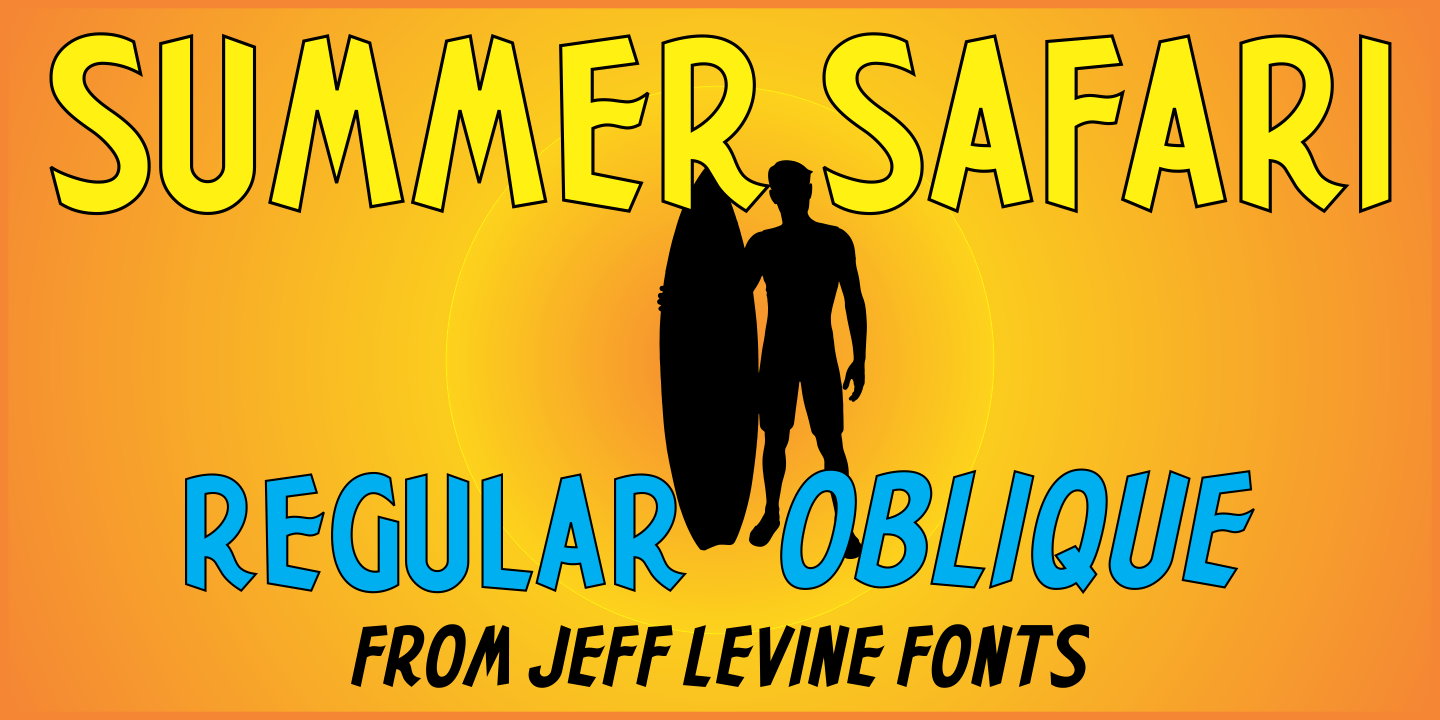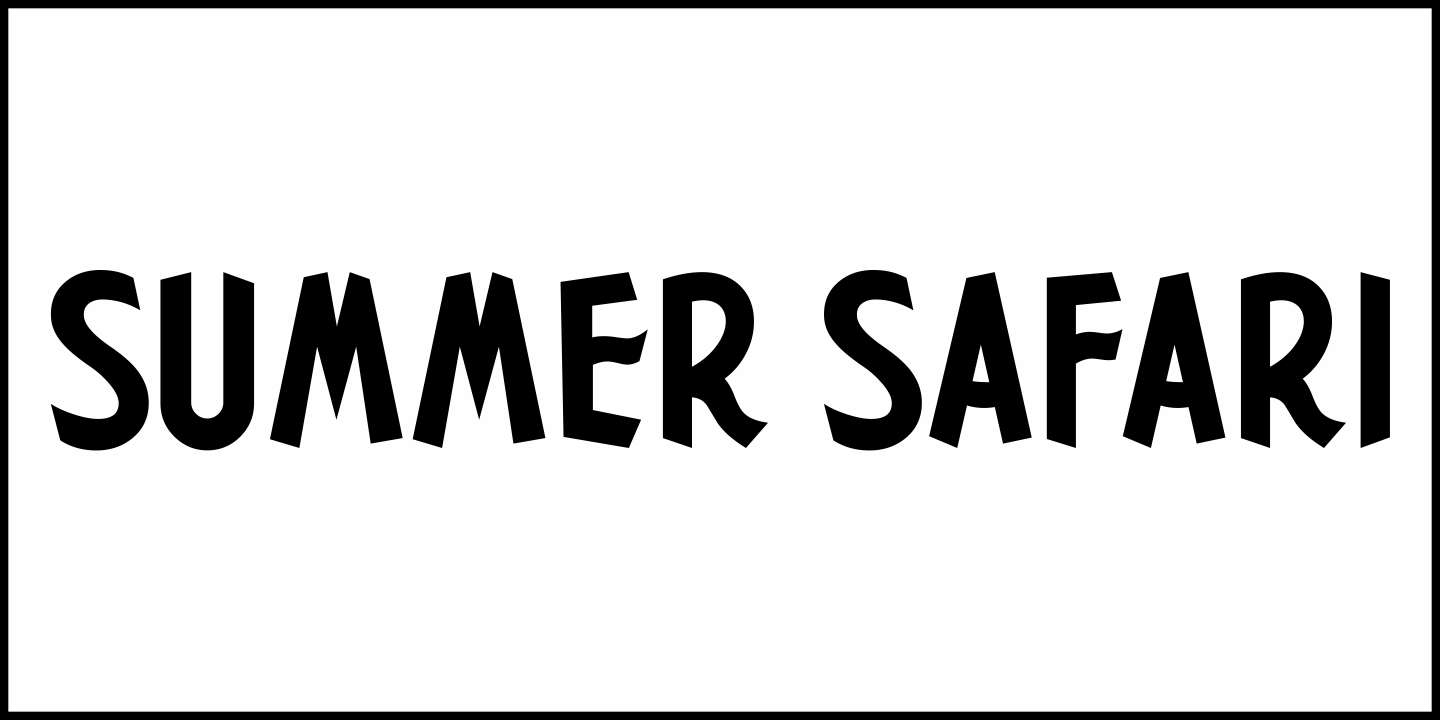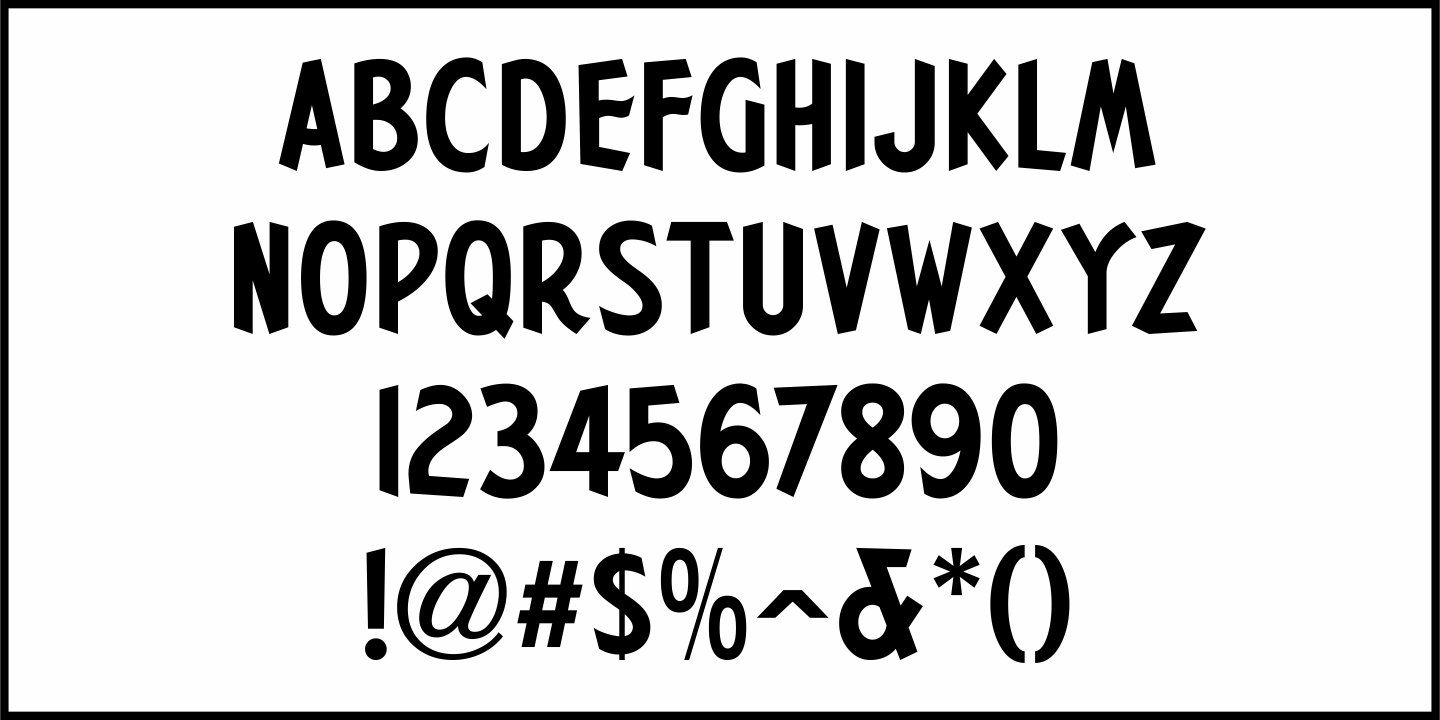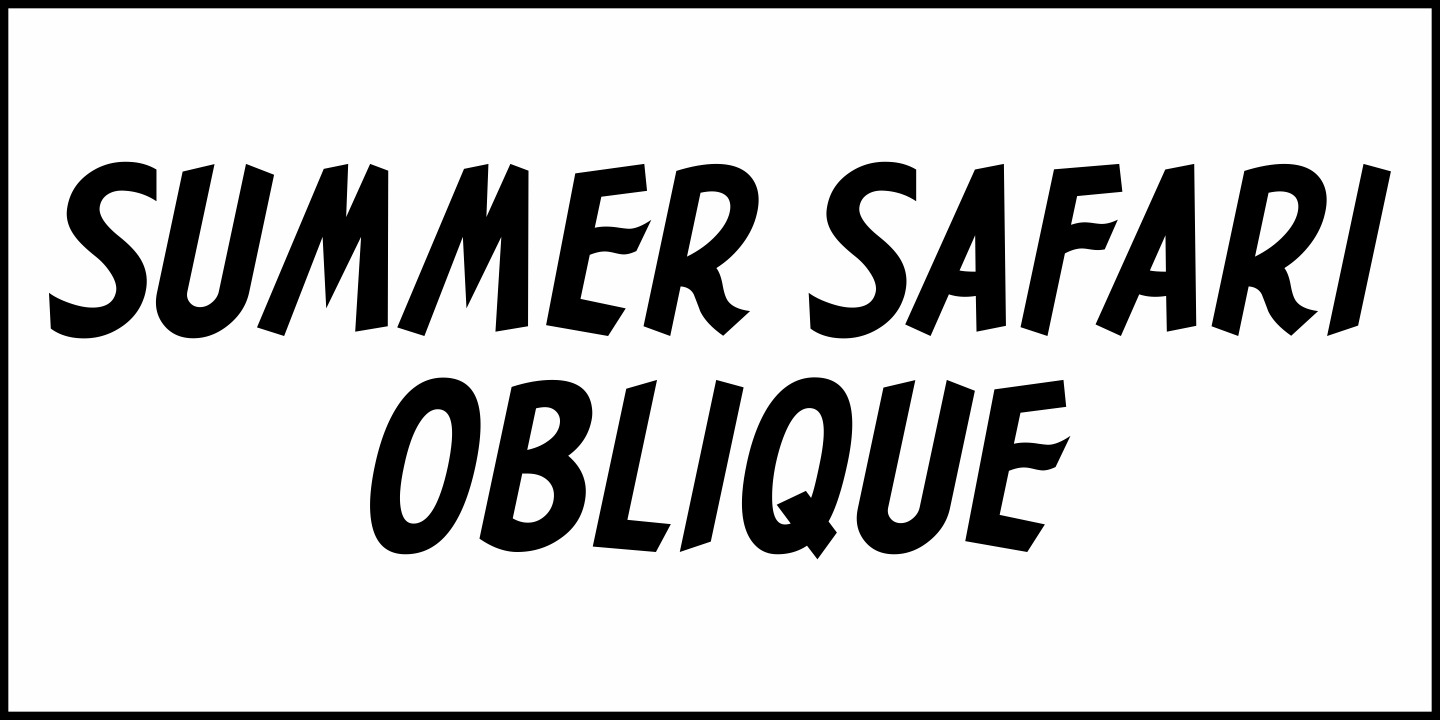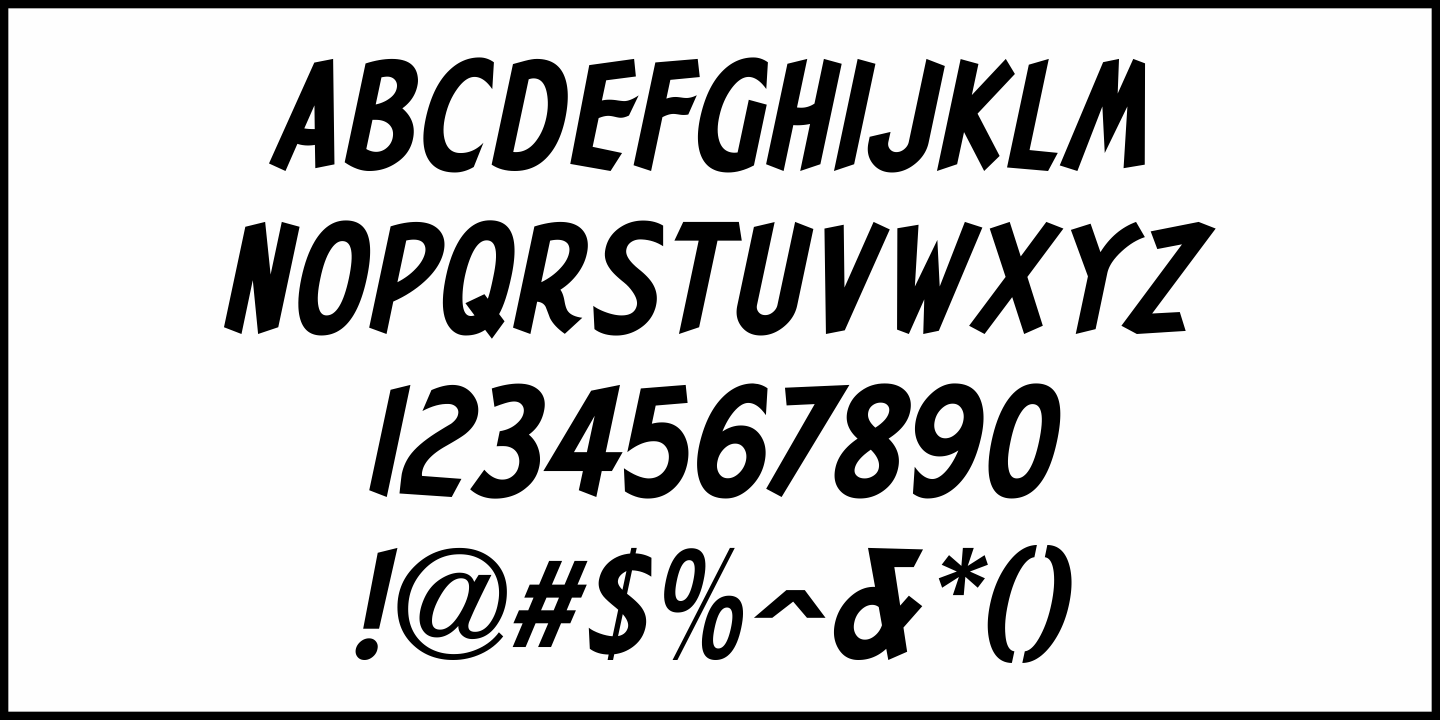
Summer Safari
Inspired by an image of a 1960s rock and roll concert poster for 'The Beach Boys Summer Safari', this typeface captures the casual, informal lettering of the main headline and makes it available digitally.
Evoking sunny days of fast cars, pretty girls and riding the waves, the playfully hand lettered Summer Safari JNL is available in both regular and oblique versions.
Summer Safari JNL Oblique
Summer Safari JNL Regular
Summer Safari by Jeff Levine Fonts